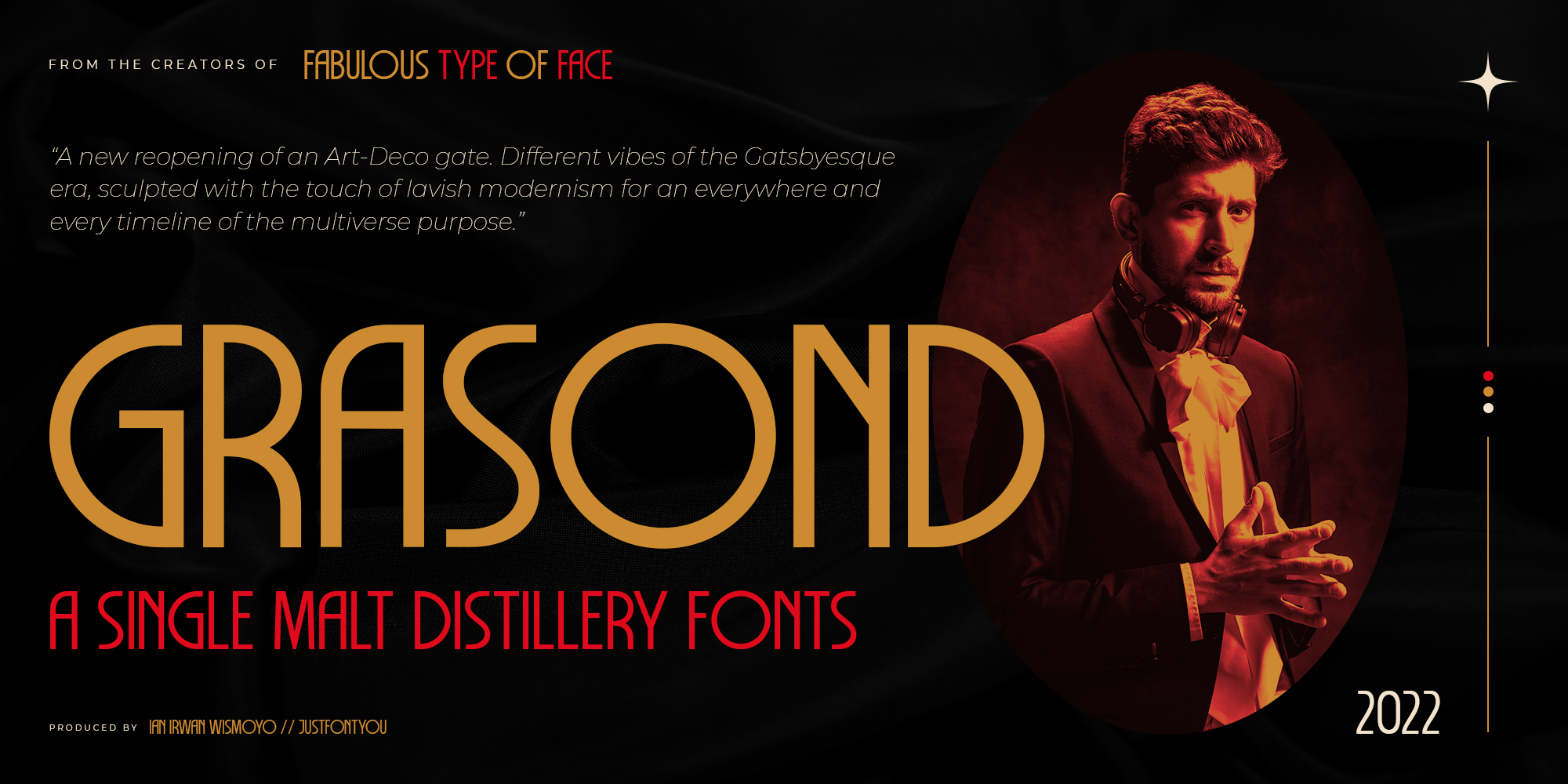
The Grasond Font is perfect for modern architectural firm branding, contemporary design studio logos, minimalist art gallery signage, sleek corporate presentations, innovative tech company graphics, progressive real estate marketing, sophisticated urban development projects, cutting-edge interior design materials, and avant-garde creative agency portfolios.
What makes the Grasond Font so exciting is its contemporary architectural precision that perfectly captures the clean geometry and sophisticated minimalism of modern design philosophy. This sophisticated typeface embodies the structural elegance and innovative thinking that defines contemporary architecture and design, creating an immediate impression of professional excellence and design sophistication. The font's grasond character communicates the precision and innovative vision that modern design businesses need to attract clients who appreciate cutting-edge aesthetics and seek contemporary solutions rooted in architectural excellence and sophisticated design innovation.
The Grasond Font family includes Regular weight featuring complete uppercase and lowercase character sets, comprehensive numerical collections, essential punctuation marks, and architectural symbols that maintain the contemporary aesthetic throughout your modern design and architectural excellence design projects.
Contemporary design firms and architectural organizations consistently choose Grasond Font Free Download for projects that require authentic modern appeal and sophisticated design communication. This exceptional typeface excels in environments where establishing design credibility and architectural innovation is crucial for attracting discerning clients who value contemporary aesthetics and cutting-edge design solutions. The font's grasond character helps communicate the quality and design excellence that modern architecture audiences expect from established design professionals and innovative architectural service providers.
The distinctive qualities of Grasond Font reflect the evolving traditions of contemporary design where architectural innovation, geometric precision, and aesthetic sophistication create transformative spaces and memorable design experiences. Each character demonstrates the careful balance between form and function that characterizes successful modern design businesses and architectural enterprises. The font's proportions and spacing create perfect harmony between design authority and contemporary accessibility that modern architectural businesses require for effective design communication and professional positioning.
Contemporary architectural enterprises appreciate how Grasond Font communicates design authenticity and innovative excellence. Whether designing materials for architectural studios, creating branding for interior design consultancies, or developing marketing for contemporary construction projects, this font delivers the sophisticated character that distinguishes genuine design innovation from generic modern styling. The typeface works exceptionally well for businesses emphasizing architectural precision, design innovation, and the sophisticated appeal of contemporary aesthetics and modern design excellence.
The versatility of Grasond Font extends across multiple design applications and architectural marketing initiatives. Urban planning firms utilize its contemporary character for development presentations and city design communications. Modern furniture designers choose it to communicate their commitment to innovative design and contemporary aesthetic excellence. Architectural photographers rely on its sophisticated appearance to attract clients seeking cutting-edge portfolio presentations and modern design documentation.
Digital design platforms benefit from Grasond Font's optimized performance across various contemporary applications and architectural communication channels. The font maintains its grasond character whether displayed on design websites, mobile architecture apps, or high-resolution professional presentations. This technical reliability ensures consistent brand presentation across all design communication platforms and architectural engagement scenarios.
The emotional impact of Grasond Font resonates with audiences who appreciate contemporary design and seek innovative solutions that reflect modern aesthetic sensibilities and architectural sophistication. The typeface serves as a visual statement of design excellence and contemporary innovation that helps architectural businesses build lasting relationships with clients who value cutting-edge design and modern architectural solutions. This connection to design innovation and contemporary sophistication makes it invaluable for establishing credible modern design brand identities.
Architectural marketing specialists and contemporary design professionals recognize Grasond Font as an essential tool for authentic modern branding. The font captures the essence of contemporary design while making architectural innovation accessible to modern design businesses who want to communicate their commitment to design excellence, innovative solutions, and the sophisticated appeal of contemporary architecture and cutting-edge design aesthetics in today's competitive design marketplace.